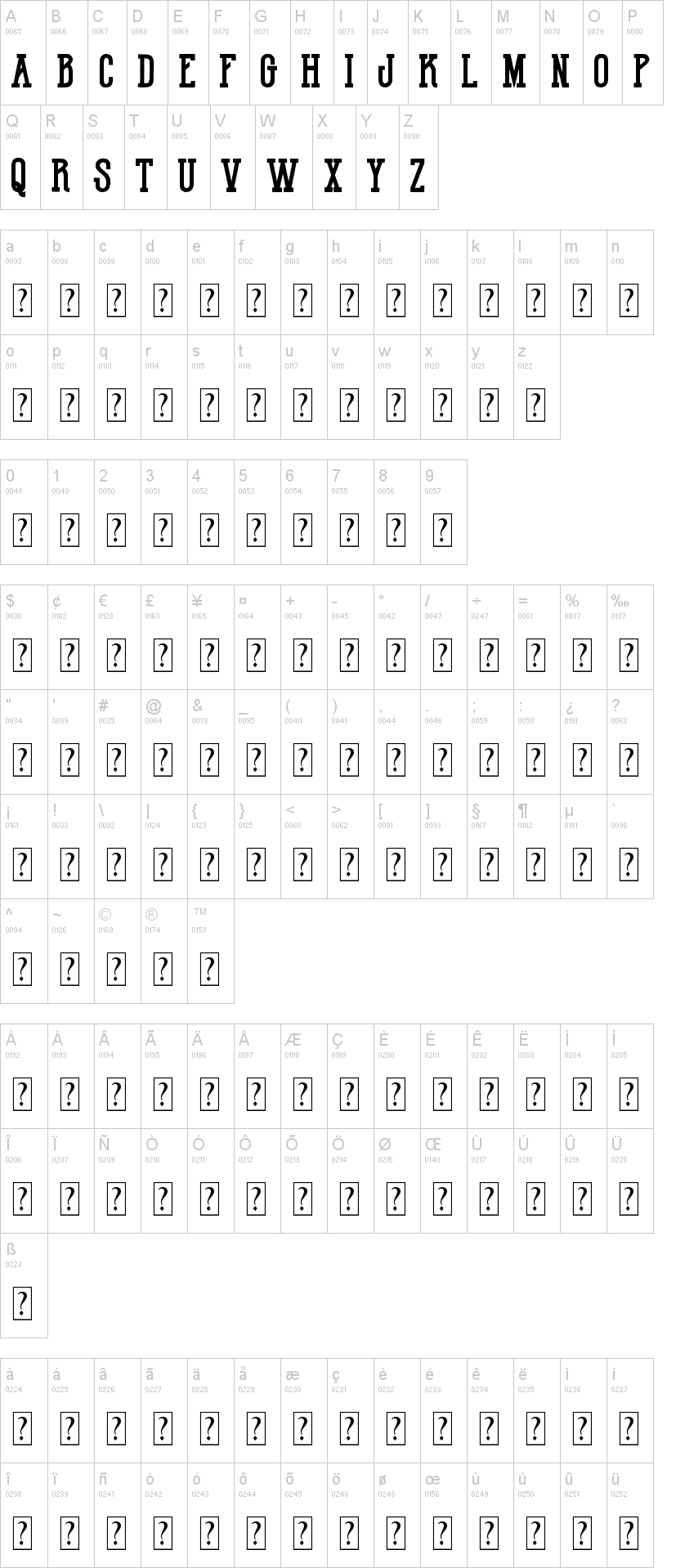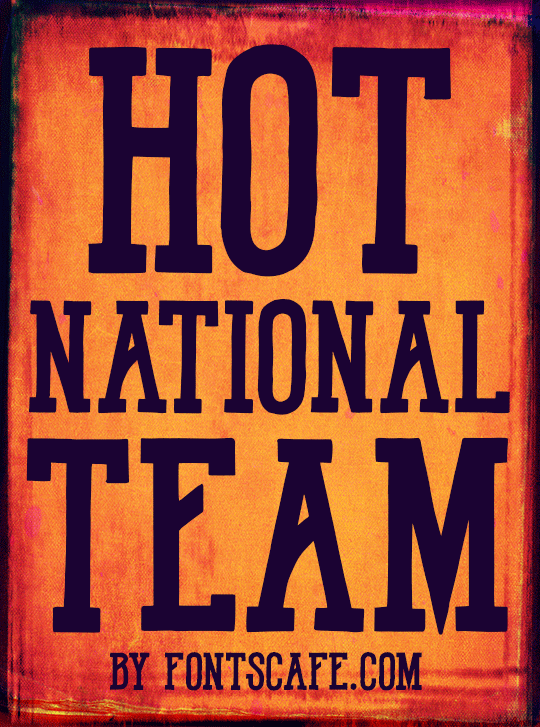
A clean, secure and simple classic College font with elegant proud touches are the features for this "Hot National Team" font which impersonate the characteristics of any athlete dreaming to make it to the National Team.
Dedication to the Team project, focus and passion are condensed in this College font looking for them to be expressed. You can check the full font on this page https://fontscafe.com/font/hot-national-team-font.